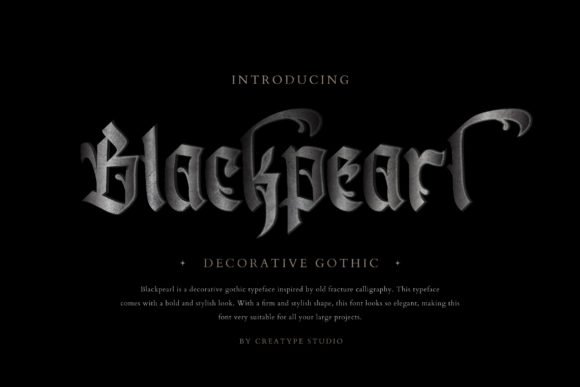
Unleash Your Creativity with the Blackpearl Font
Have you ever found yourself staring at a blank canvas, waiting for the perfect font to spark your creativity? For many designers, this moment is a familiar one – the moment when the right font can make all the difference between a good design and a great one. It’s in these moments that we turn to the Blackpearl Font, a stunning blackletter font that adds a touch of sophistication and elegance to any project.
The Blackpearl Font is a gothic-inspired masterpiece, perfect for branding projects, logos, wedding designs, and more. With its PUA encoding, accessing all of the glyphs and swashes is a breeze, allowing you to create unique and eye-catching designs with ease. For designers, the Blackpearl Font is a valuable tool that can elevate their work and take it to the next level.
Blackpearl Font Key Features
- Font Family: Blackpearl is a serif font with a unique, elegant design.
- Unique Characteristics: The font features subtle flair and flair connections between letters, giving it a distinctive and elegant look.
Blackpearl Font Review
Overall, I was excited to dive into the Blackpearl Font. ✨ One of the things I appreciated was its unique aesthetic – it’s got a quirky, handwritten feel that’s perfect for adding some personality to your designs. ✨ The font’s irregularities also give it a sense of movement, which can be really effective in capturing a sense of energy or playfulness.
- Wide range of weights and styles to choose from, making it easy to customize your design
- Perfect for adding a touch of whimsy or personality to your project
- Works well in both digital and print applications
However, there are a few limitations to consider: ⚠️ The font’s irregularities can sometimes make it difficult to read, especially at smaller sizes. ⚠️ Additionally, the font’s style may not be to everyone’s taste – some people may find it too playful or immature. ⚠️ Finally, the font’s OpenType features can be a bit finicky to use, which may require some trial and error to get right.
Overall, I’d say that the Blackpearl Font is a great choice for designers looking to add some personality to their projects. While it may have some limitations, its unique aesthetic and wide range of customization options make it a versatile and effective tool in the right hands.
Tips for Getting the Most Out of Blackpearl Font
Use the Blackpearl font to create elegant and sophisticated designs.
Pair it with bold colors to create contrast and visual interest.
Experiment with different font sizes and styles to create a unique look.
Use the Blackpearl font for:
Formal business documents and presentations.
Magazine and book covers.